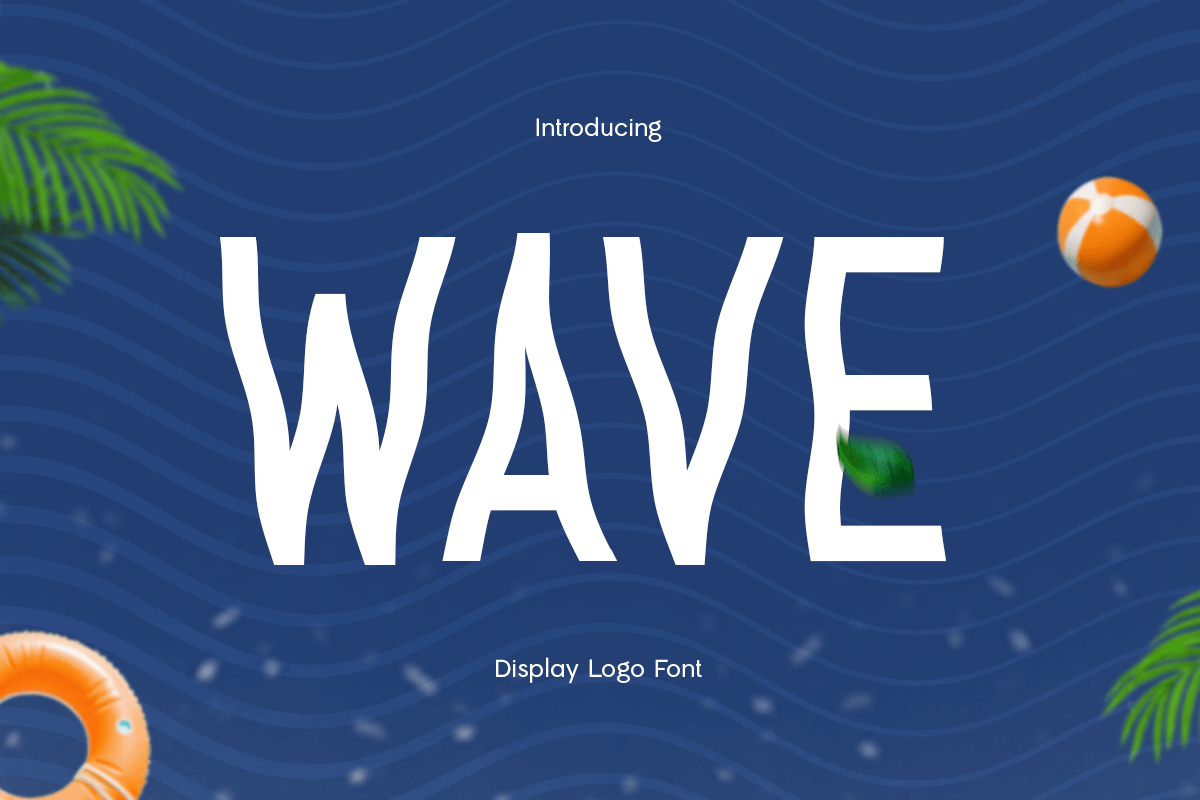
Wave
-Display Logo Font
Wave is a stylish display logo font inspired by the natural motion of waves. Its fluid and contemporary design is perfect for brands and projects that aim to convey energy, fun, and creativity. Whether you're designing for beach events, tropical themes, or casual brands, Wave will make your work stand out with its unique character.
Wave Display Loo Font Features:
• Uppercase & Lowercase Letters
• Numbers & Punctuation